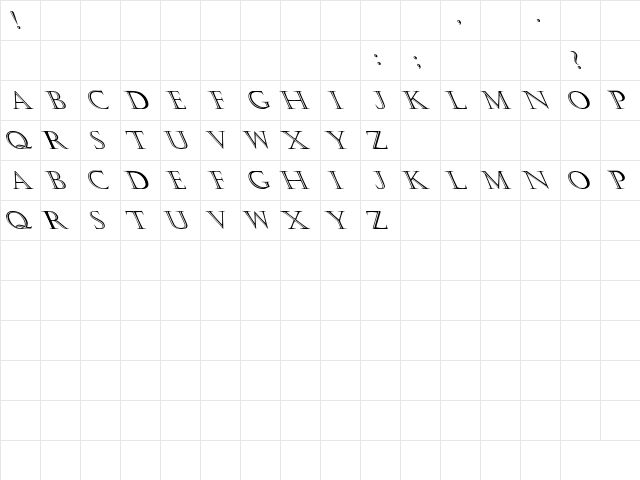
Kastellar Leftie Regular
Design Context for Kastellar Leftie Typeface
Kastellar Leftie is a composed and adaptable typeface that performs quietly and consistently across a wide range of design contexts.